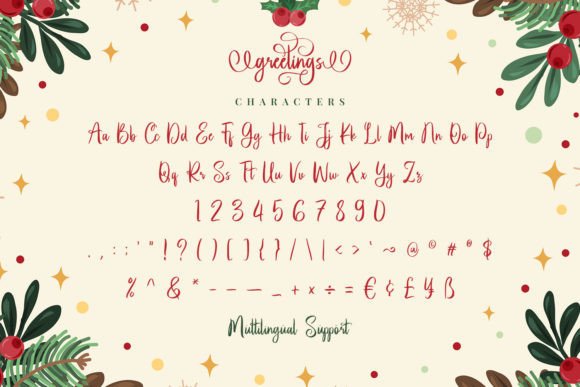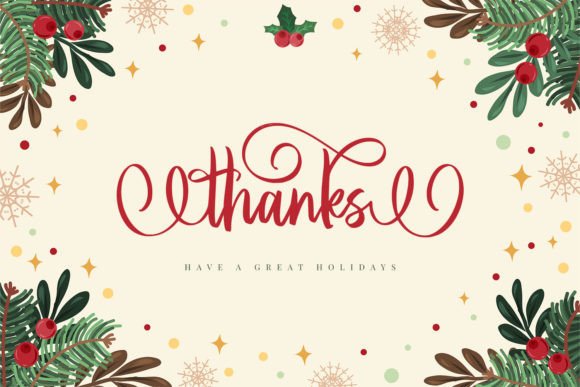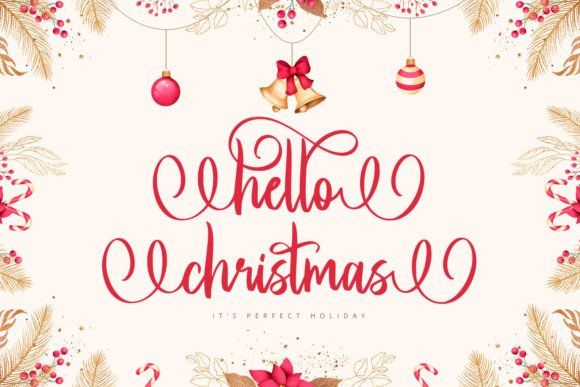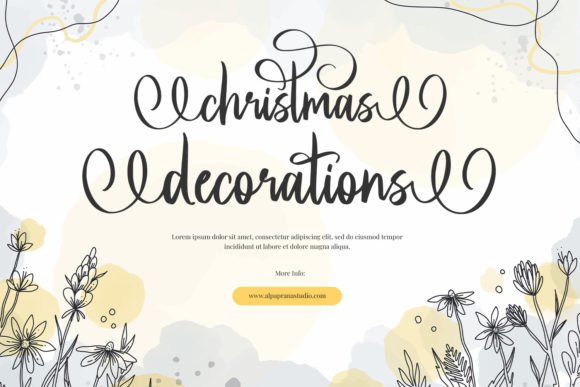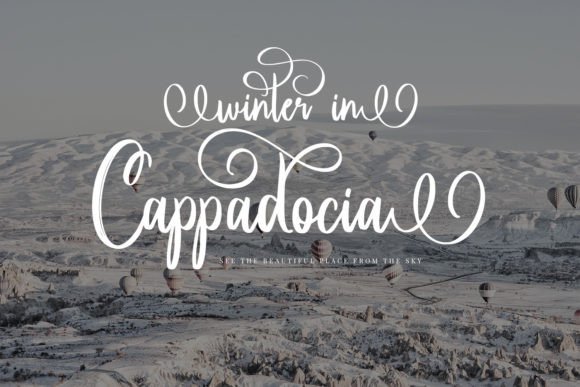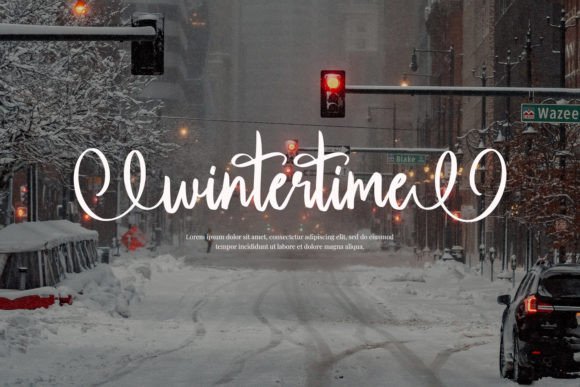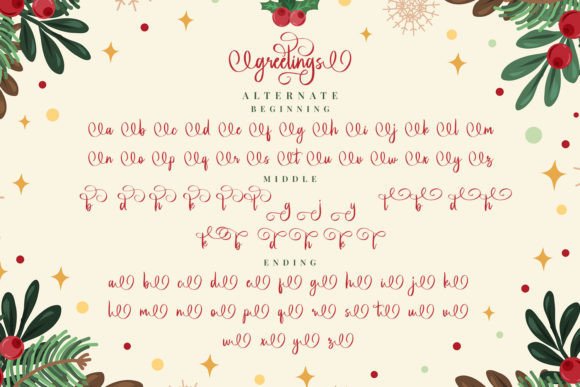
Greetings Font
About Greetings Font
Elegant Script for Stylish Branding
The Greetings Font download brings a touch of elegance to your creative toolkit. This modern script typeface features a graceful and unique design, making it perfect for a wide variety of creative uses. Not only does it look polished, but it also adapts beautifully to many types of layouts.
Versatile and Easy to Use
You can use this font across many platforms. For instance, it works well in branding projects, such as logos or product labels. Additionally, it shines on posters, packaging, shopping bags, book covers, and even t-shirts. No matter where you apply it, the font adds a professional yet creative look.
Designed for Creative Impact
Whether you’re preparing a fashion magazine or crafting visuals for a special event, Greetings Font makes every element feel refined. It pairs especially well with photography and minimalist design, giving your visuals a clean but expressive finish. As a result, your audience will notice the added sophistication.
Add a Signature Touch
Thanks to its fluid strokes and modern script style, Greetings Font easily adds a personalized touch. Rather than looking too formal or stiff, it creates a sense of warmth. Furthermore, you’ll find it simple to work with, no matter your design experience.